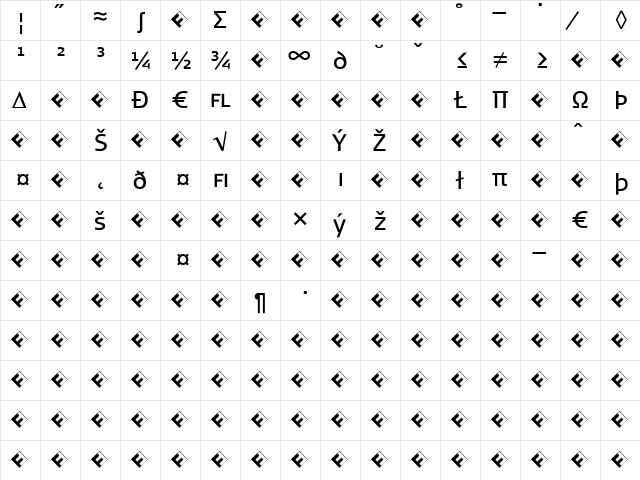
SignaCaps-BookExpert Regular
| Designer | Ole Soendergaard |
Design Context for SignaCaps-BookExpert Typeface
SignaCaps-BookExpert is a composed and adaptable typeface that performs quietly and consistently across a wide range of design contexts.